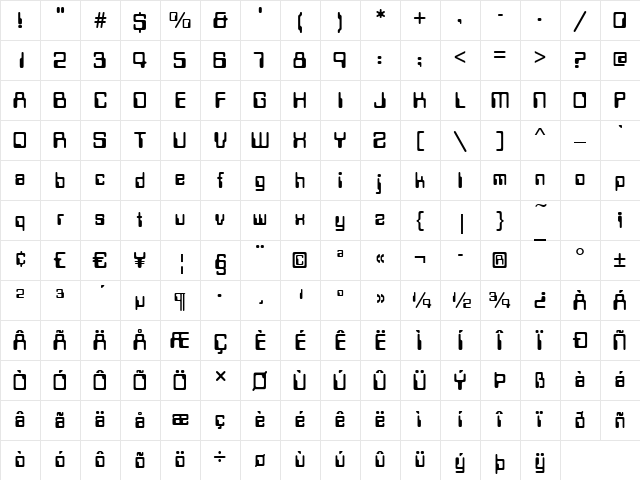
Computer Regular
Design Context for Computer
Computer is a composed and adaptable typeface that performs quietly and consistently across a wide range of design contexts.